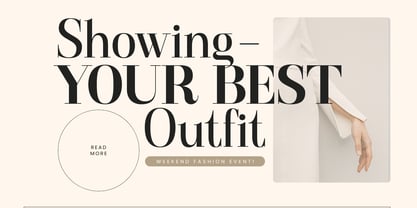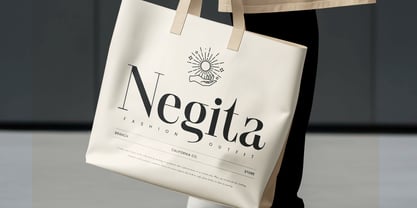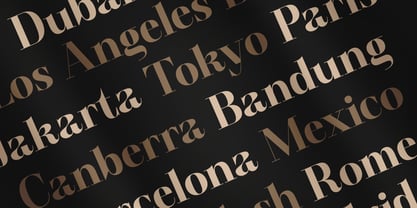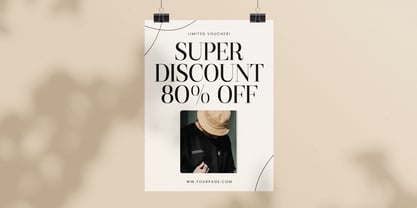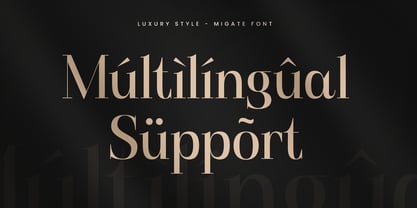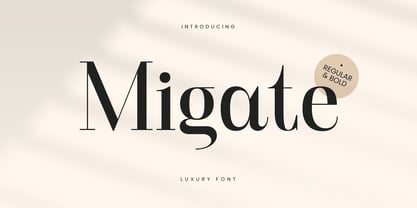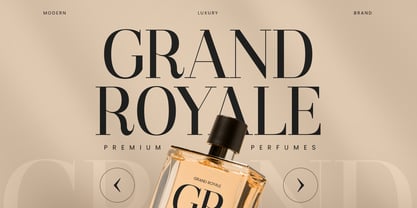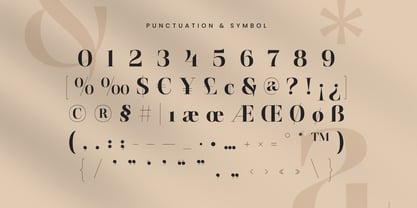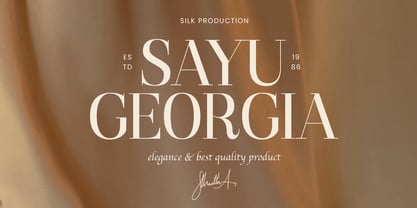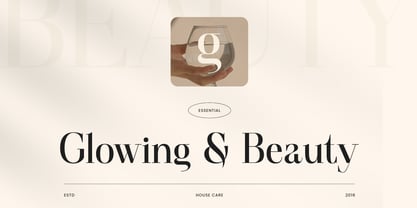
Migate
by Sensatype Studio
The Migate Font Family was designed by Zamroni Hamzah and published by Sensatype Studio. Migate contains 2 styles and family package options.
Migate is a font that embodies elegance and luxury. Designed with a focus on sophistication, this serif font is perfect for high-end branding and design projects. Its refined curves and graceful lines make it a versatile choice for logos, invitations, and upscale marketing materials. With Migate, your designs will exude a sense of timeless class and exclusivity.
Whether you're creating a chic brand identity or crafting a beautiful print piece, Migate offers the features and flexibility you need. Its comprehensive character set includes Regular and Bold style, uppercase and lowercase letters, punctuation, numbers, and symbols. Plus, with multilingual support and various file formats, Migate ensures your designs stand out in any context.
Migate Luxury Font Features:
• Uppercase and Lowercase
• 2 Weights: Regular and Bold
• Punctuation, Number, and Symbol
• Multilingual Support
• Opentype Features